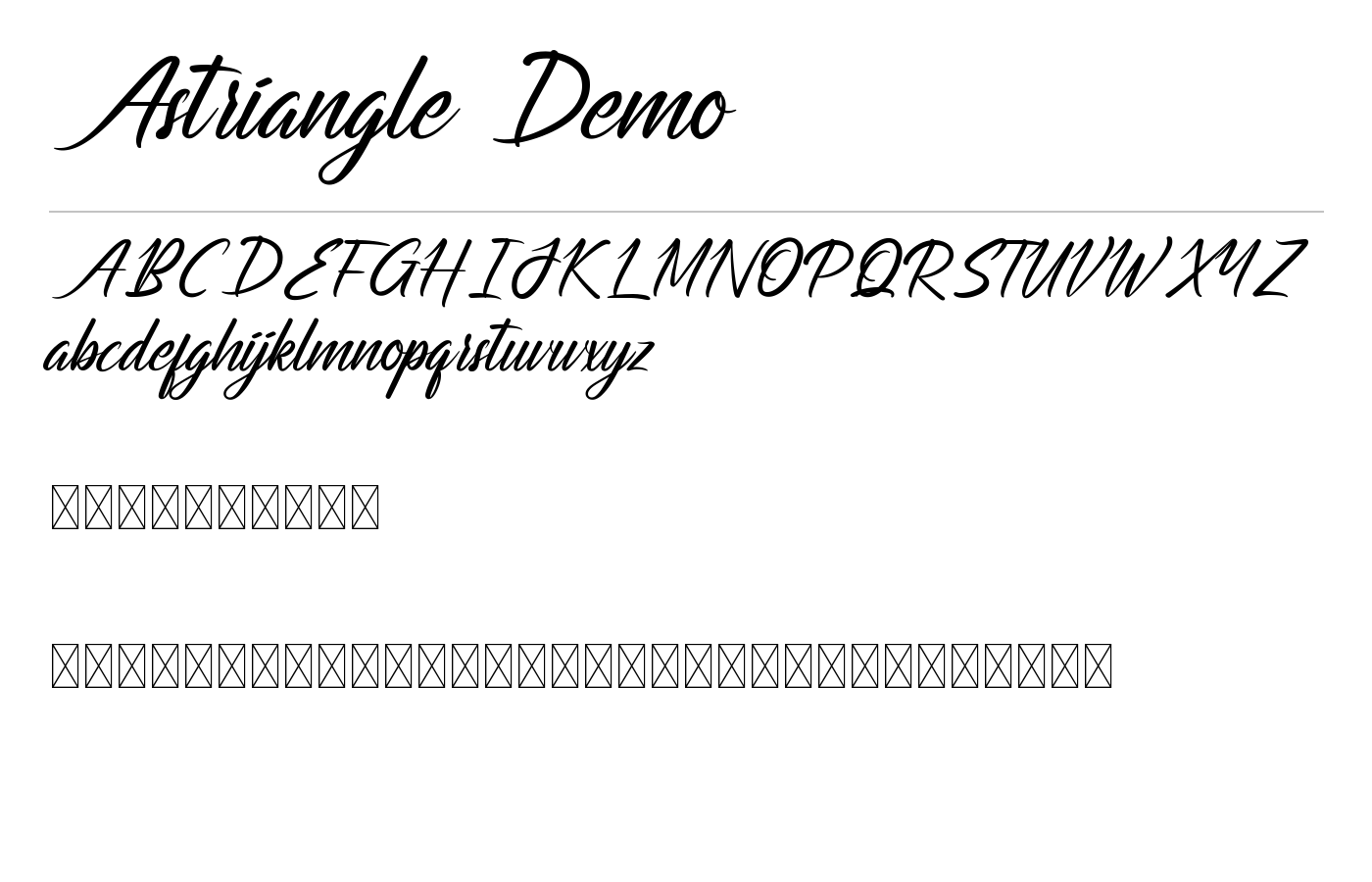
Astriangle Demo is an elegant script font featuring slender, flowing letterforms that mimic natural handwriting with a graceful slant and moderate stroke contrast. Its refined style conveys a sophisticated and personal touch, making it perfect for invitations, branding, and editorial use where a stylish yet approachable feel is desired. This font works well in settings that require both delicacy and readability, adding charm and warmth to any design.
Astriangle Demo Font
About Astriangle Demo Font
| Font family | Astriangle Demo Font |